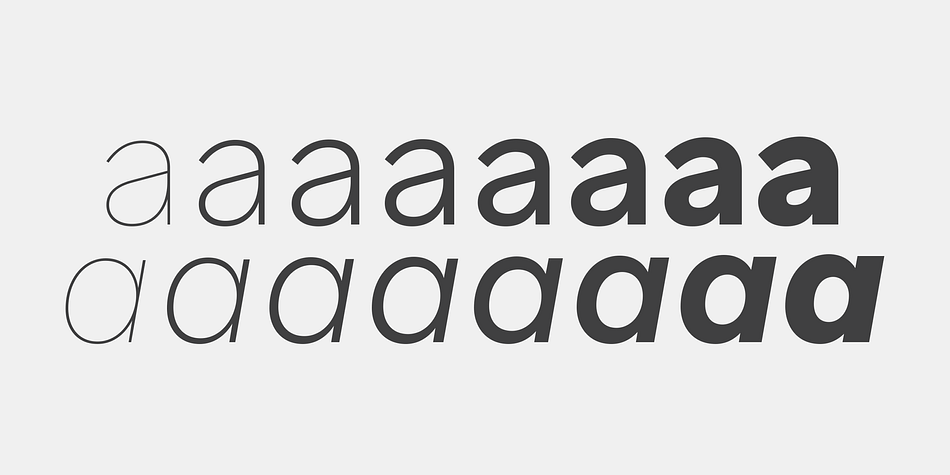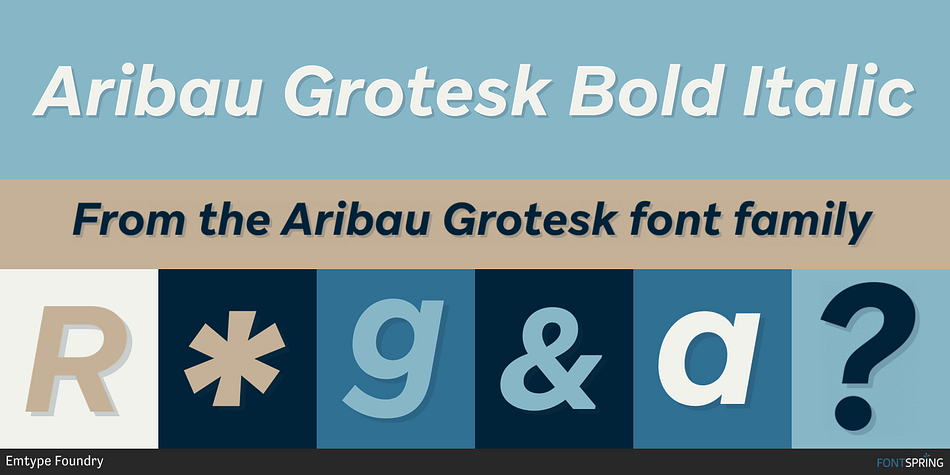
Designed by Eduardo Manso, Aribau Grotesk is a sans serif font family. This typeface has sixteen styles and was published by Emtype Foundry.
Aribau Grotesk Bold Italic
Born from the intersection of the geometric and grotesque typefaces. Aribau Grotesk combines low contrast and generous width proportions with typical traits of american gothics from the early 20th century, like the counters aperture and a double story ‘g’. Driven by the process, some details that come from the geometric style arose, like the clean-shaped figures and the circular dots that convey a more affable and contemporary look.